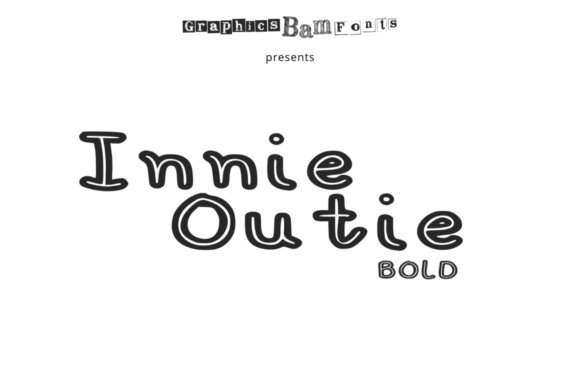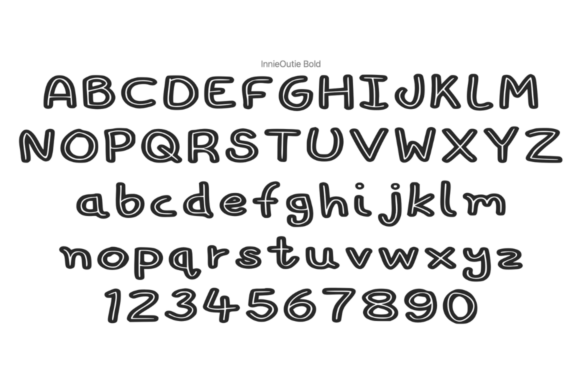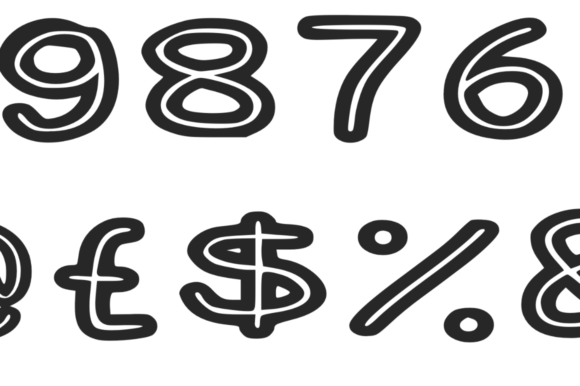
The Birth of a Bold Design
You know that moment when a spark of creativity hits you, and you can’t wait to bring your vision to life? For designers, that moment is often the starting point of a new project. And what better way to kick-start your design journey than with a font that embodies boldness and fun? Enter Innie Outie Bold Font, a modern display font designed to add a dash of personality to your designs.
With its single bold weight, Innie Outie Bold Font is the perfect addition to any design project that needs a little extra oomph. Whether you’re creating a social media campaign, a branding identity, or a packaging design, this font is sure to make your work stand out. And the best part? It’s just the beginning – Innie Outie Bold Font is part of a larger family of fonts that offers a vast array of weights and glyphs to help you mix and match to your heart’s content.
Innie Outie Bold Font Key Features
- Font Family: Innie Outie Bold
- Unique Characteristic: Distinctive “innie” and “outie” belly button designs in the font’s letterforms, adding a playful touch to text
Designer Review: Innie Outie Bold Font
I recently had the chance to work with the Innie Outie Bold Font, and I’m sharing my honest thoughts on this font.
- Unique style: Innie Outie Bold has a distinctive style that stands out from other fonts. It’s perfect for those who want to add some personality to their designs.
- High contrast: The font’s bold style makes it easy to read, even at small sizes. The high contrast between the bold and regular letterforms is visually appealing.
- Good for headlines: Innie Outie Bold is ideal for use in headlines, titles, and other display typography.
- Not ideal for body text: While the font is great for headlines, it may not be the best choice for body text due to its bold and stylized nature.
- Limited flexibility: Innie Outie Bold is a bit too bold to use in designs where subtlety is key.
Overall, I think Innie Outie Bold is a great choice for designers who want to add some personality to their work. While it may not be the best fit for every project, it’s definitely worth considering for those special occasions where you want to make a statement.
Use Innie Outie Bold Font for headings and titles to add a touch of sophistication to your designs.
Experiment with different font sizes and styles to create visual hierarchy and emphasis.
Common use cases include magazine and newspaper headlines, advertisements, and marketing materials.
Alternatives to Innie Outie Bold Font for Designers
Montserrat is a modern sans-serif font designed for digital use. It is highly legible and versatile, making it suitable for a wide range of applications, including logos, body text, and headings. Montserrat is a great alternative to Innie Outie Bold Font when you need a clean and modern look. While Montserrat is more refined and sleek, it lacks the bold, playful feel of Innie Outie Bold Font.
Akzidenz Grotesk
Akzidenz Grotesk is a classic sans-serif font that was first released in the 19th century. It has a strong, bold feel that makes it suitable for use in headings and titles. Akzidenz Grotesk is a good alternative to Innie Outie Bold Font when you need a bold, eye-catching font. However, it may not be as versatile as Innie Outie Bold Font and may not work as well in body text.
Playfair Display is an elegant, high-end serif font that is suitable for use in headings, titles, and other high-impact applications. It has a luxurious feel that makes it perfect for use in branding, advertising, and other high-end design projects. Playfair Display is a good alternative to Innie Outie Bold Font when you need a sophisticated, elegant look. However, it may not be as bold or playful as Innie Outie Bold Font.